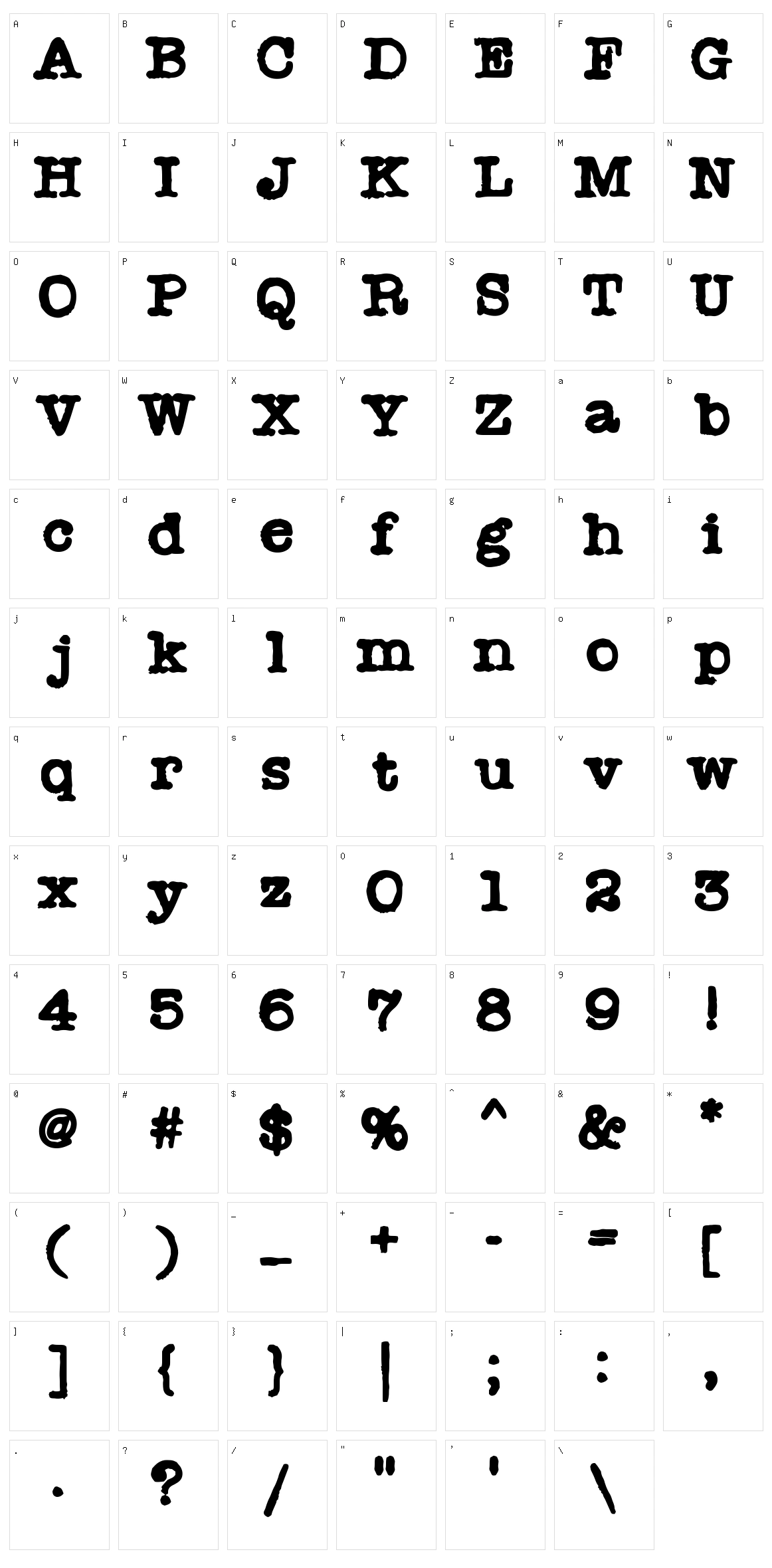
The free font Radio Newsman is carefully designed by Shara Weber, showcasing a thoughtful balance of creativity and usability and falls under the Typewriter font style. When you download the ZIP file, it contains only 21.04 KB of font files, making it lightweight and quick to download. Please review the license details below to understand permitted usage and distribution rights. If license information is not available, we recommend using this font for personal projects only or contacting the author directly for commercial usage permissions.